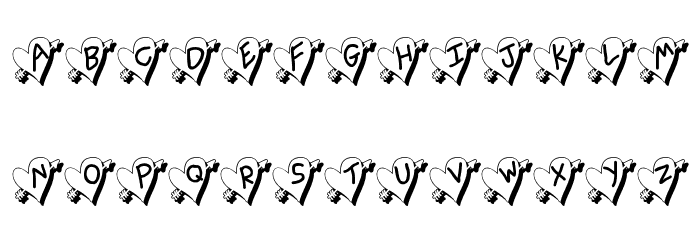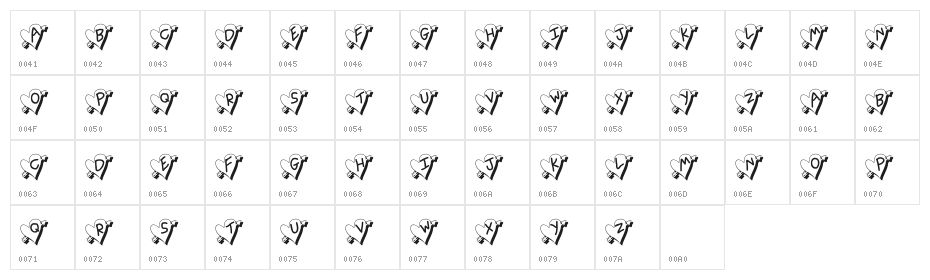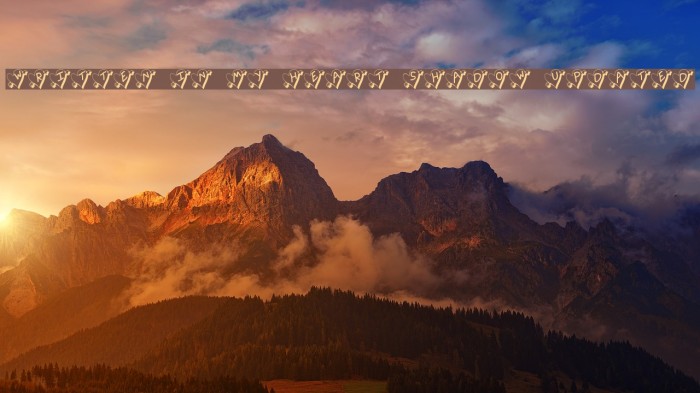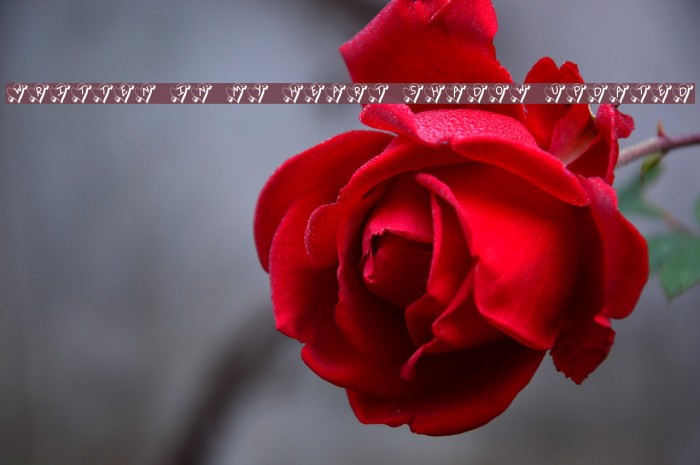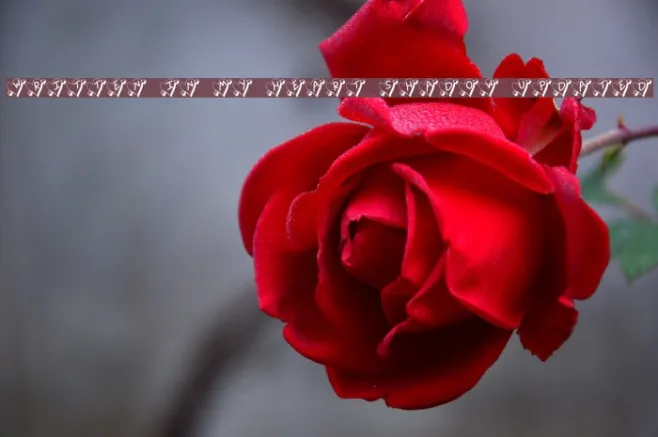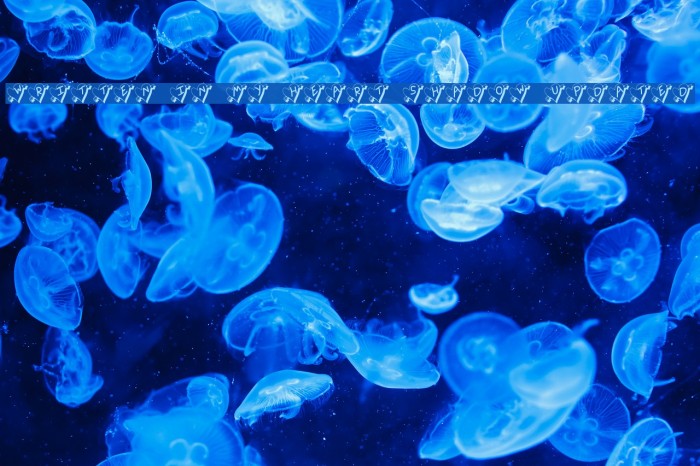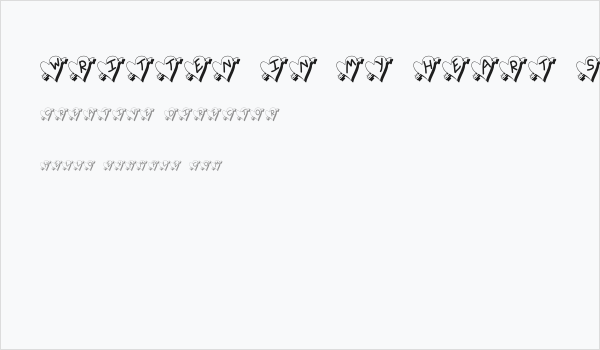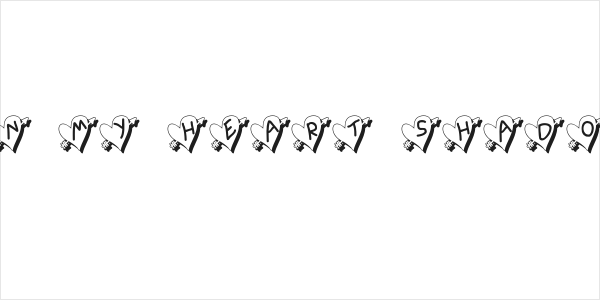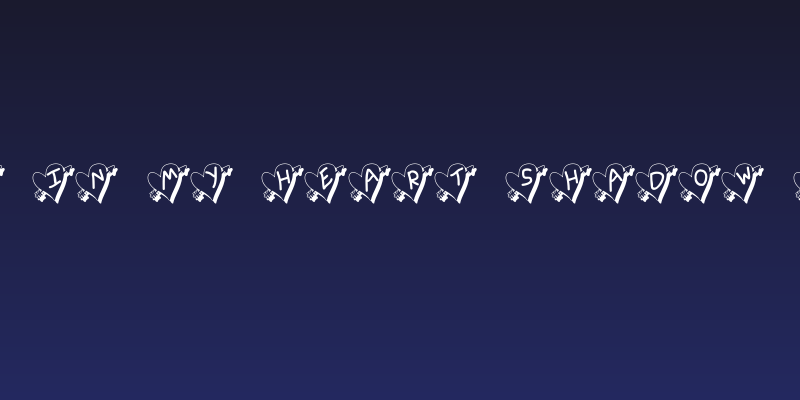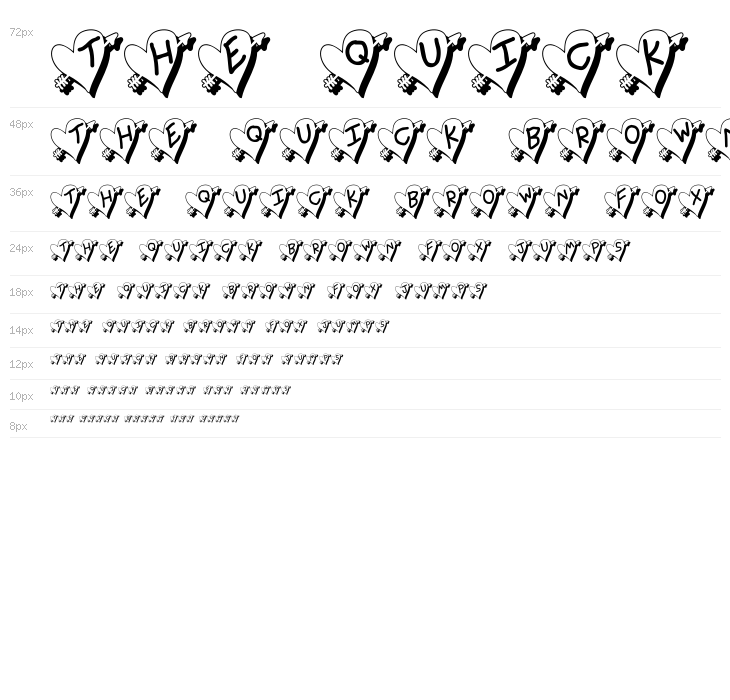
Written In My Heart Shadow Updated Font
Written In My Heart Shadow Updated Description
This font features a whimsical and romantic design, with each character enclosed in a heart shape, accompanied by a key motif. The letters are bold and playful, with a shadow effect that adds depth and dimension. The overall style is decorative and charming, making it ideal for projects that require a touch of romance or a playful aesthetic. The font's unique design elements make it stand out, perfect for creative and artistic applications.
| Proposed Projects | Ideal for wedding invitations, Valentine's Day cards, romantic posters, and playful branding projects. |